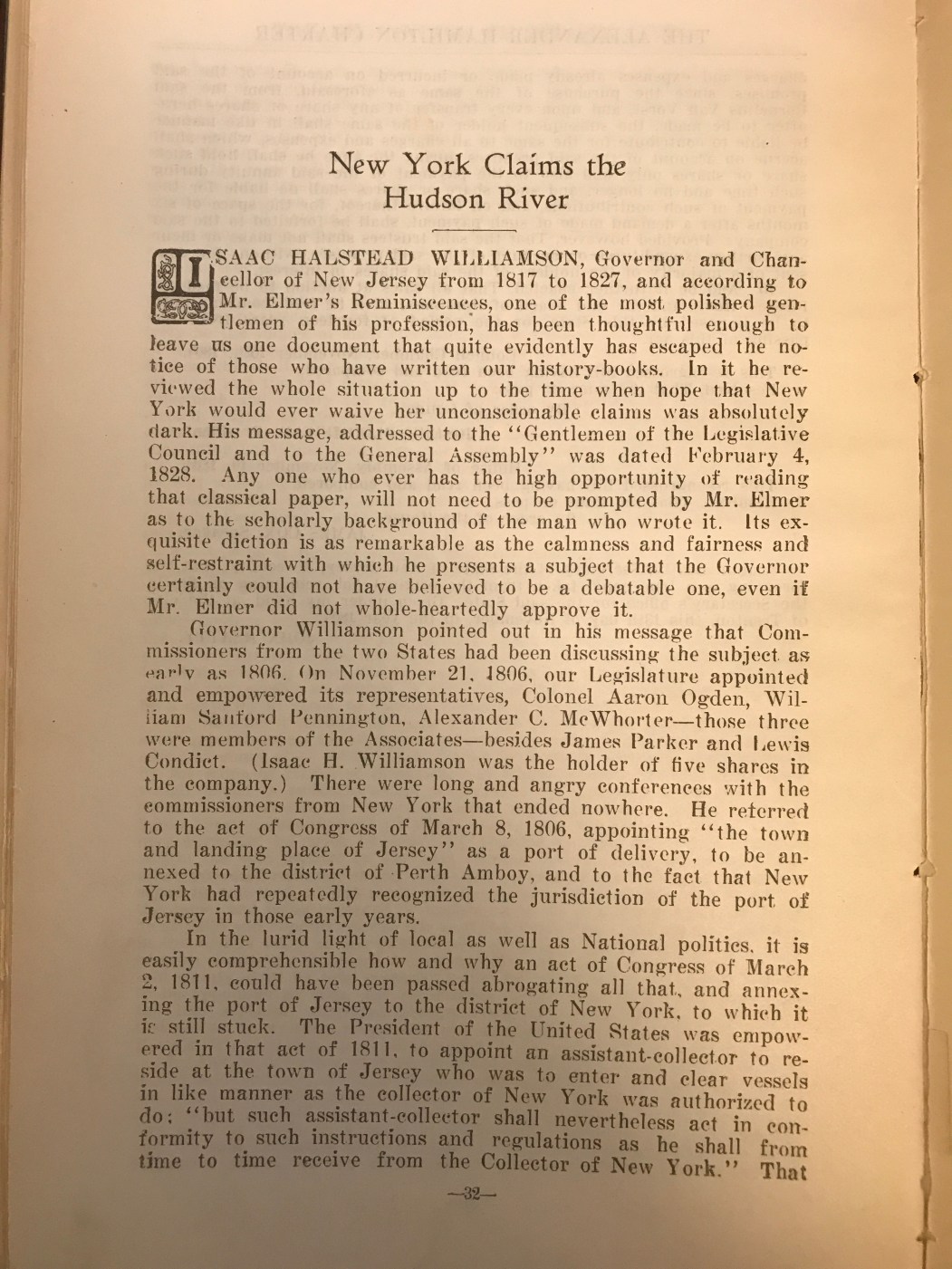
Maybe Too Easy For You Guys, Print Book Font
I was browsing some books in my hometown library and for some reason I really liked the look of this text. I'm sure it's something super common and easy to identify but I want to be sure I have the exact font. I wish I had noted the title of the book (it was sorta old and falling apart) but I did snap a photo of a page. The 'e' in the title is different than the 'e' throughout the text.
Thanks so much! That is the name of the book, I kept googling 'Jersey City beginnings book' and some of the words of the text but not getting anything specific. I knew it was about New Jersey and probably about Jersey City history specifically. I thought I wouldn't be able to find it unless I had the author. Your font will help me tremendously to get as close to this as possible. If anyone figures out the title typeface let me know!
@Kevin Thompson I think I figure out what the font is for the headline...is it Nicolas Jenson Roman font? I specifically focused in on that e since its distinguishable. I found this that said it was inspired by his font: https://www.fontspring.com/fonts/adobe/adobe-jenson-pro?utm_source=fontsquirrel.com&utm_medium=matcherator_link&utm_campaign=adobejensonpro
The body copy is Linotype De Vinne. Originally set in metal, it is virtually a perfect match for the Bitstream digital version which was originally done from the Linotype library in the old 18-unit system.
The title at the top is not Adobe Jenson or Nicolas Jenson. Note the lack of a spur on the right curve of the /e where it joins the diagonal and the unusual diagonal top stroke on the /k without a serif. I don't have all my metal books available right now to research it.